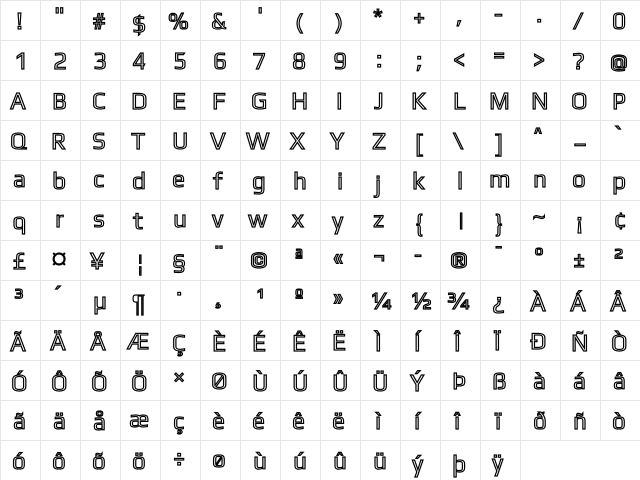
Gamestation DisplayOutline Regular
| Foundry | Jonas Hecksher, Playtype-types AS |
| Designer | Jonas Hecksher |
Design Context for Gamestation DisplayOutline Typeface
Gamestation DisplayOutline is built around its visual character rather than neutral utility — its distinctive forms are designed to make an impression at display sizes.
Font Pairing: Pair with a clean neutral sans-serif for body copy to let Gamestation DisplayOutline's character lead without overwhelming the composition.